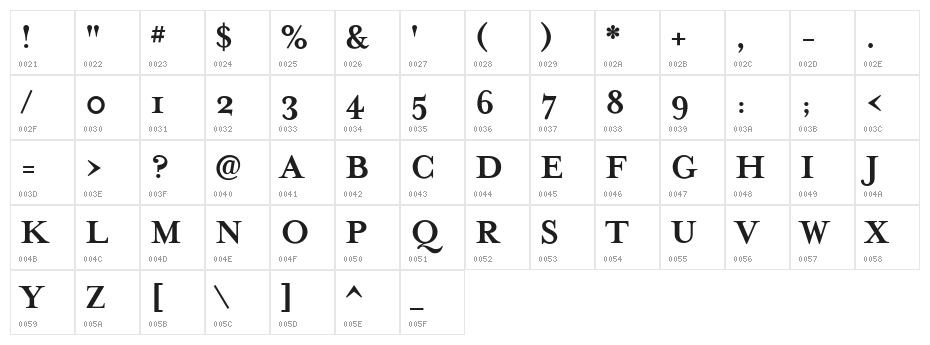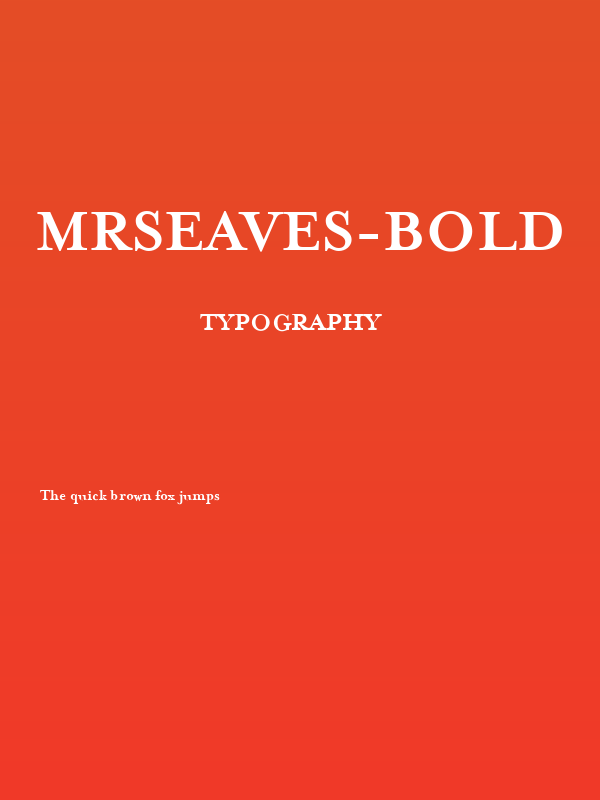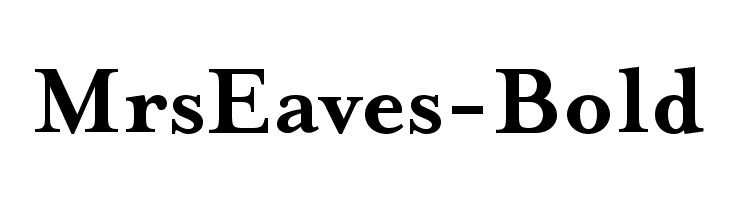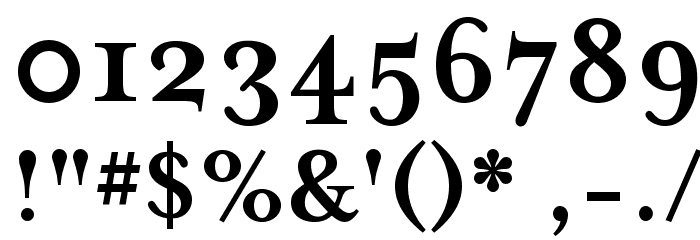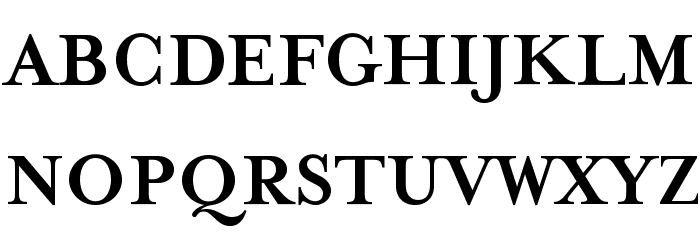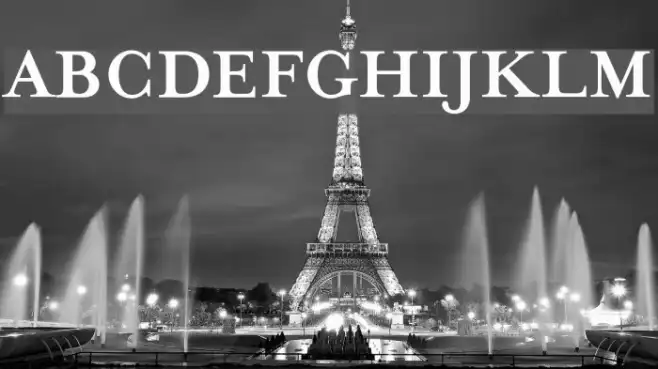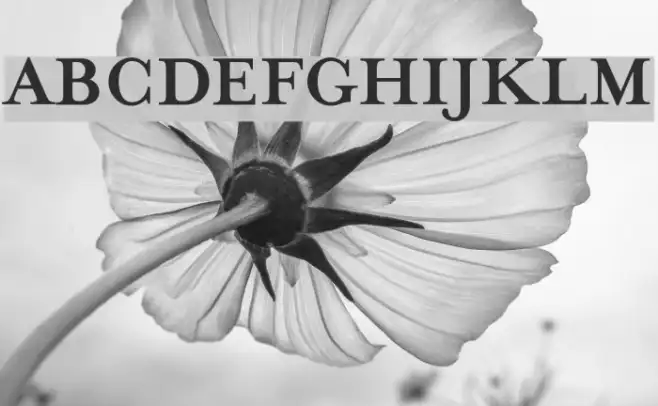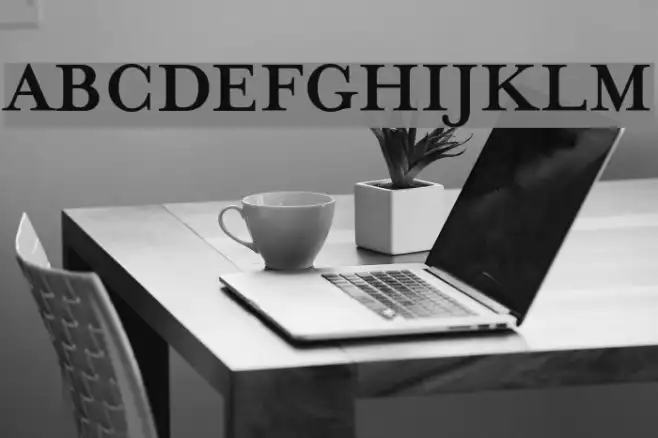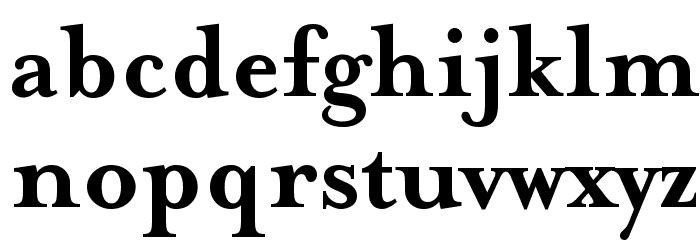
MrsEaves-Bold Font
MrsEaves-Bold Description
This font is a sophisticated serif typeface characterized by its elegant and refined appearance. The letters exhibit a classic structure with high contrast between thick and thin strokes, giving it a timeless and formal look. The serifs are well-defined and slightly bracketed, adding a touch of grace and readability. The uppercase letters are stately and balanced, while the lowercase letters maintain a harmonious flow. The numerals are consistent with the overall style, offering clarity and precision. Special characters are thoughtfully designed, ensuring versatility in various applications.
| Proposed Projects | Ideal for book typesetting, formal invitations, branding for luxury products, and editorial design. |